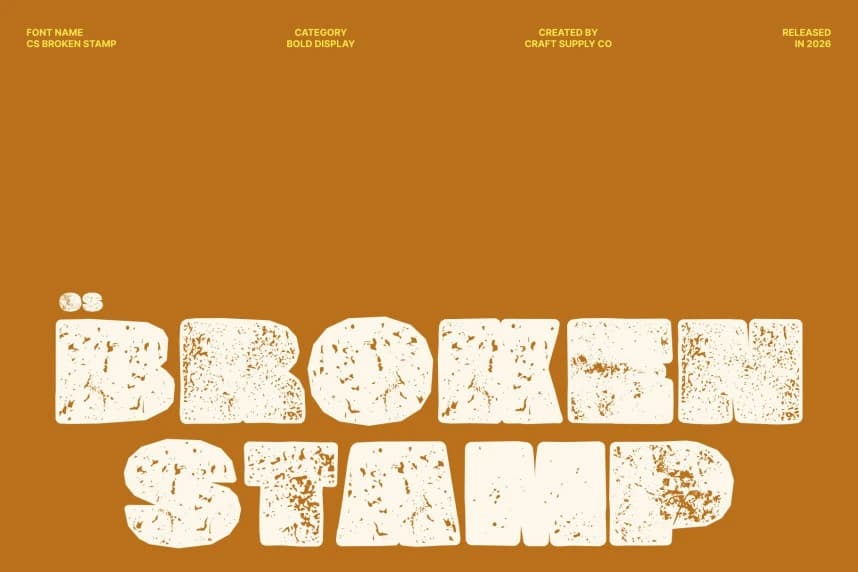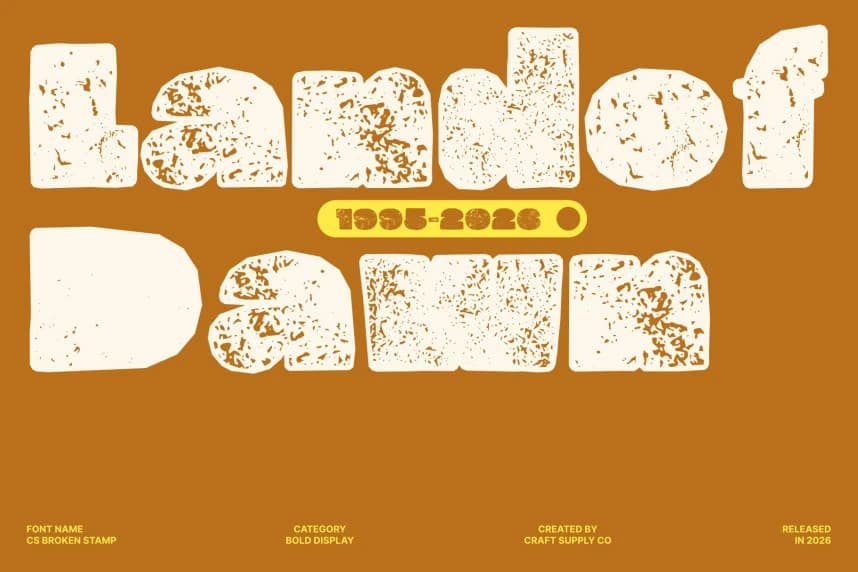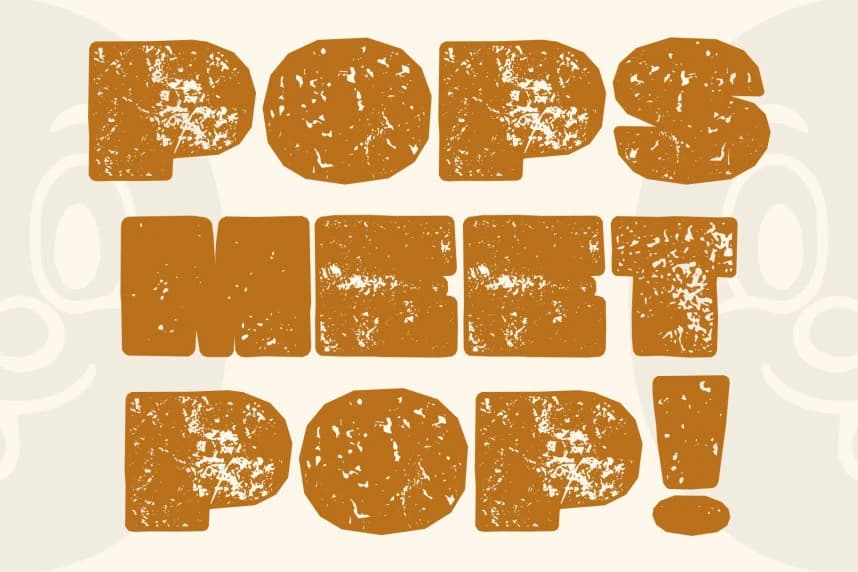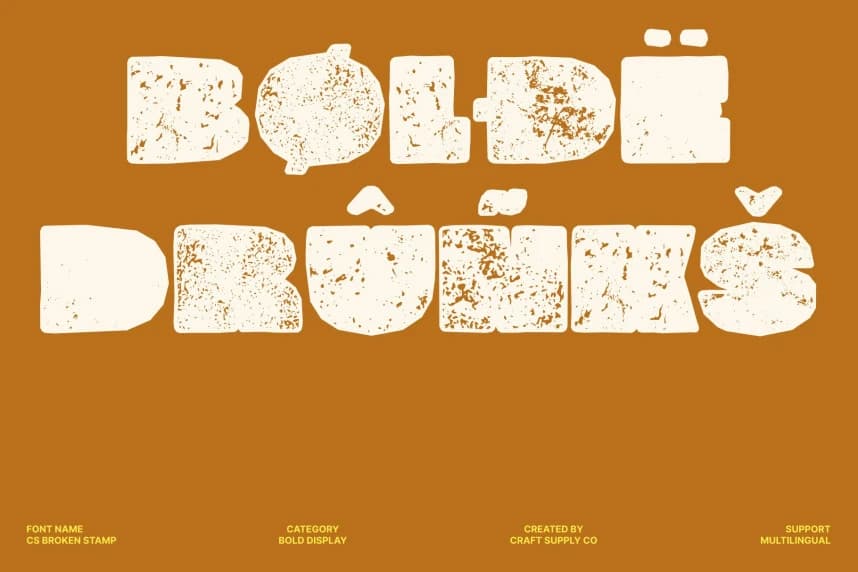
CS Broken Stamp Font
CS Broken Stamp Font – Playful Boldness with Textured Energy Cheerful Balloon-Like Display Design. This is a bold display font featuring a distinctive balloon-like design with rounded, inflated letterforms.